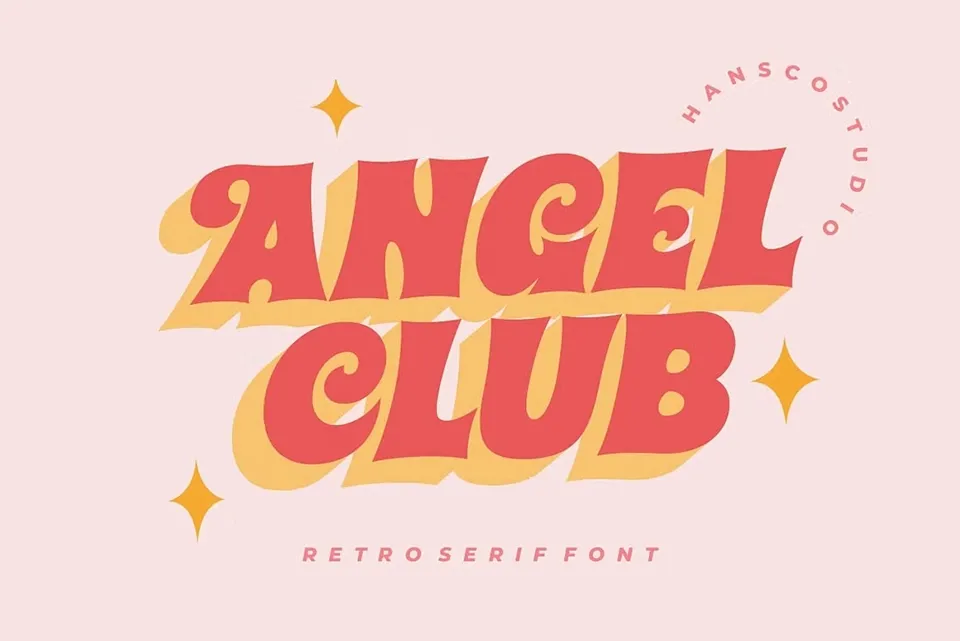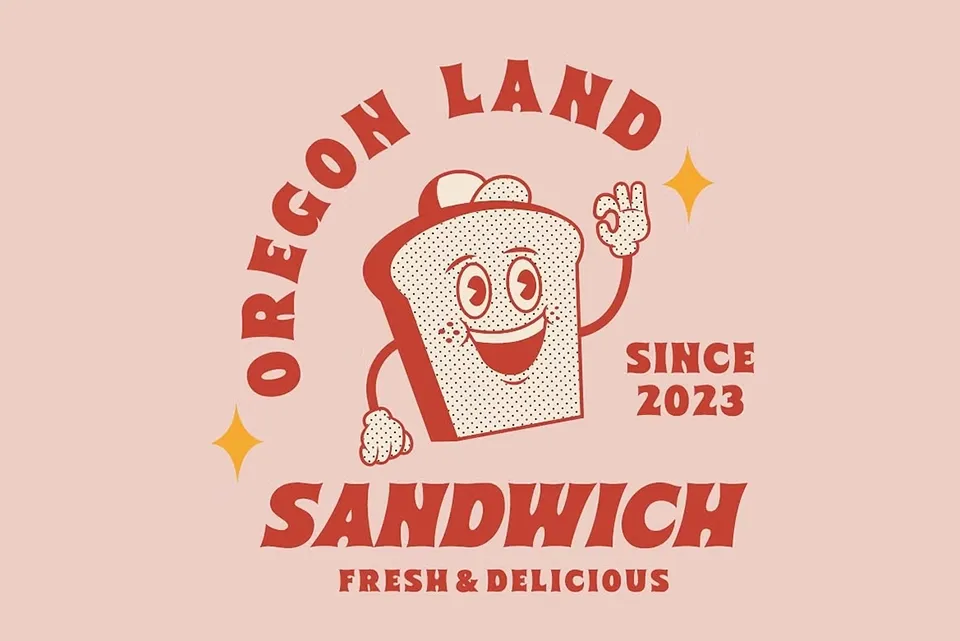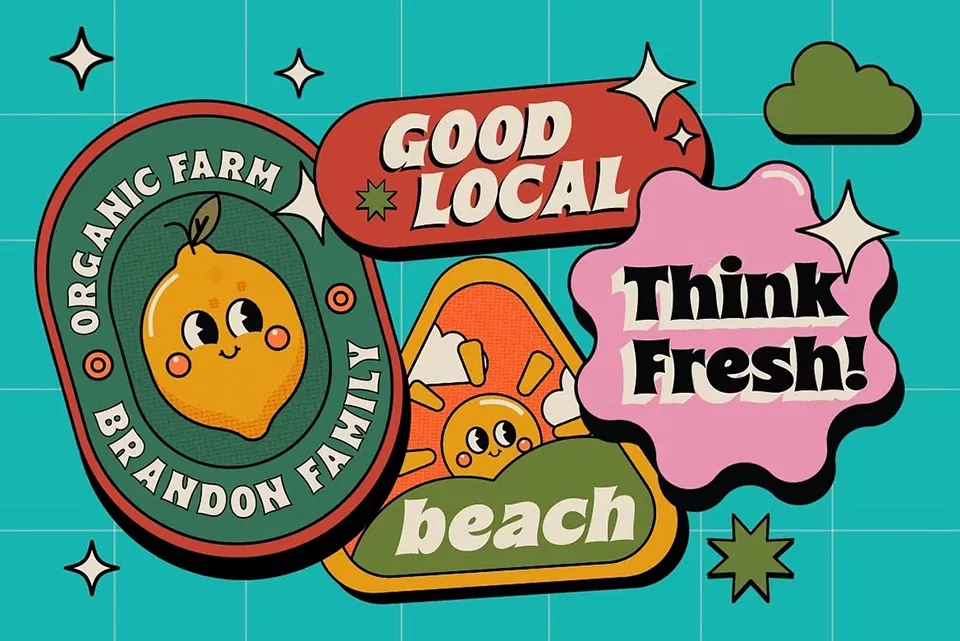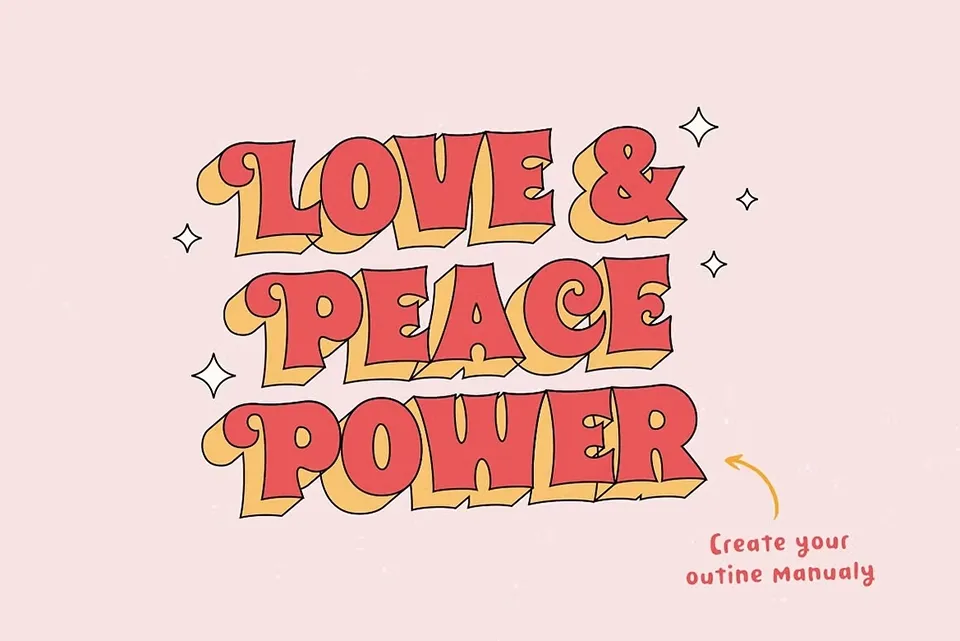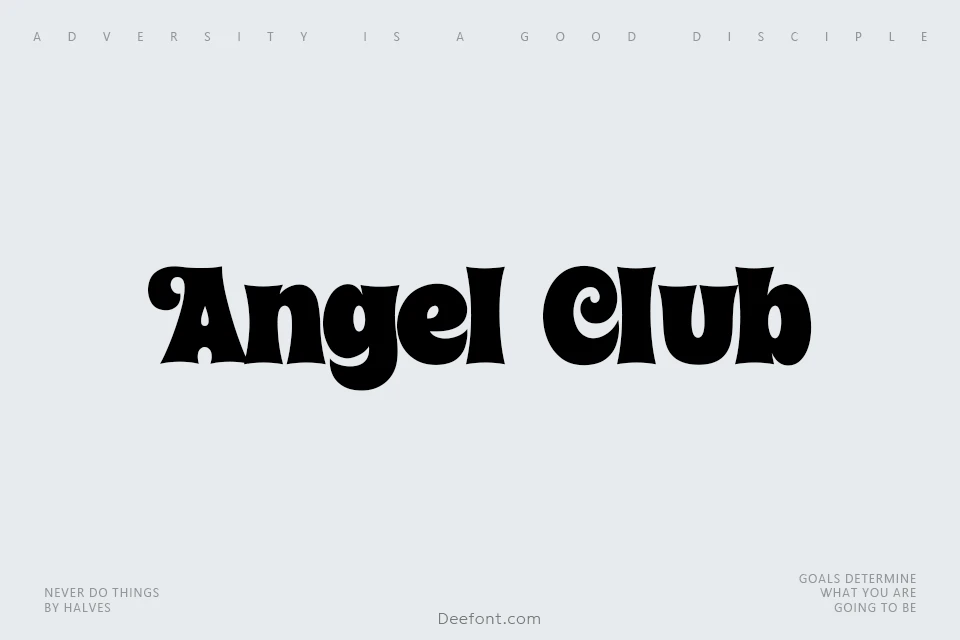
Angel Club Font
Angel Club Font is a bold, retro serif typeface designed to bring a classic yet playful touch to your projects. With its strong curves and vintage flair, this display font is perfect for logotypes, packaging, headlines, apparel, posters, magazines, books, social media graphics, and more. The font pack includes multiple styles such as Regular, Slanted, and Shadow, offering versatility for creative expression. Add a special retro vibe to any design idea with Angel Club Display Font.